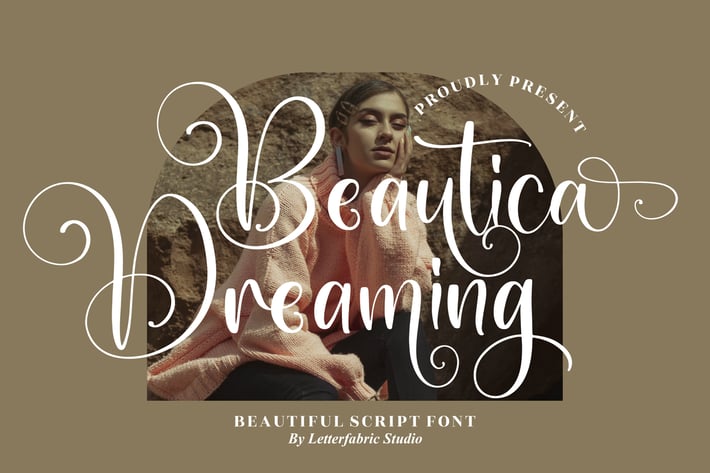
Beautica Dreaming Script Font
Beautica Dreaming is a graceful, flourished script that blends romantic curves with modern readability. Its flowing strokes and elegant swashes add a refined, handmade feel to invitations, branding, quotes, and social content—equally lovely in print or on the web.
+ Flourished calligraphy with stylish swashes
+ Uppercase & lowercase, numerals, punctuation
+ Contextual alternates & ligatures
+ Web-ready, smooth curves for clean output
+ Elegant invitations & stationery
+ Wedding branding suites
+ Logos & wordmarks
+ Social media graphics
+ Product packaging & labels
+ Event posters & flyers
+ Quotes & greeting cards
+ Website headers & banners
Let your words bloom with Beautica Dreaming.